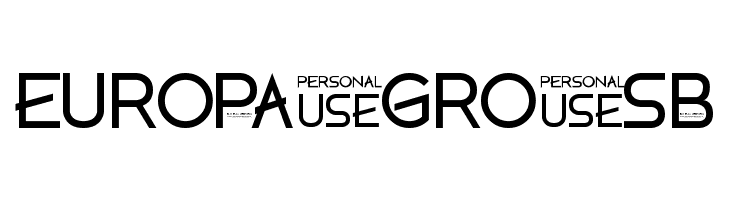
A bold, geometric font with playful and artistic character shapes.
A playful, quirky handwritten font with thin, uneven strokes.
A playful, bone-themed decorative font perfect for spooky designs.
A whimsical and decorative font with elongated, curved strokes and playful flourishes.
An elegant and sophisticated script font with flowing curves and ornate details.
A modern font with geometric influences and elongated strokes.
A modern, geometric font with bold uppercase and consistent lowercase letters.
A playful, comic-style font with bold, dynamic letterforms.
A rounded, geometric sans-serif font with a clean, modern look.
A modern, rounded sans-serif font with a friendly and approachable style.
A playful, handwritten font with a casual and dynamic style.
A bold, italic font with smooth, rounded edges and a dynamic slant.
A playful, hand-drawn font with stitched embellishments and a whimsical style.
A bold, embroidered-style font with a playful and decorative design.
A bold, graffiti-style font with a distressed, urban look.
A bold, playful handwritten font with rounded, friendly characters.
A flowing, elegant script font with interconnected letters and a sophisticated style.
A decorative font featuring unique robot-themed characters for each letter.
A bold, brush-style font with a hand-painted, cursive aesthetic.
A bold, geometric font with intricate patterns for striking visual impact.
A modern, geometric font with minimalist curves and straight lines.
A decorative dingbat font composed of assorted hand-drawn bows.